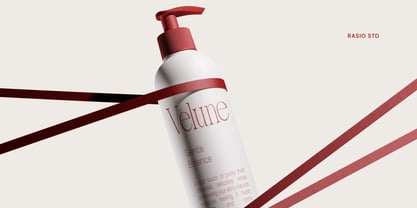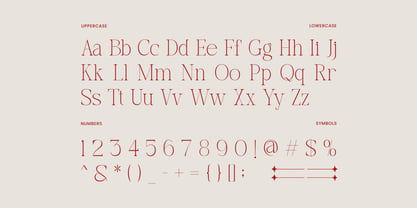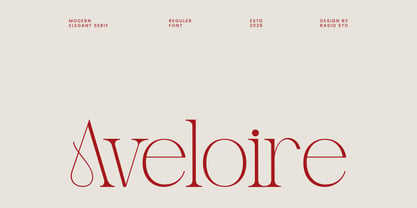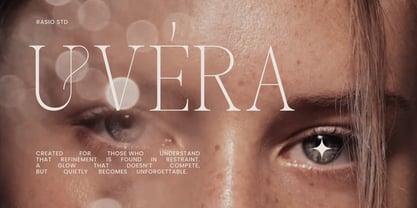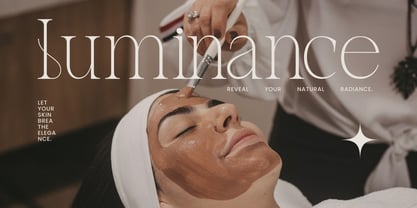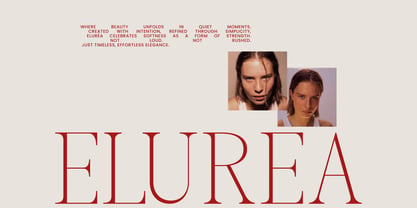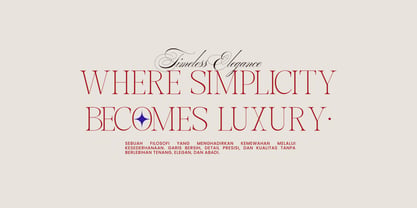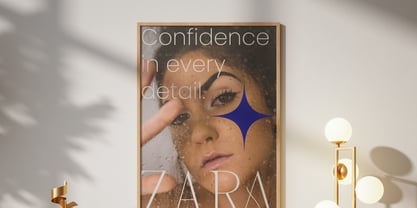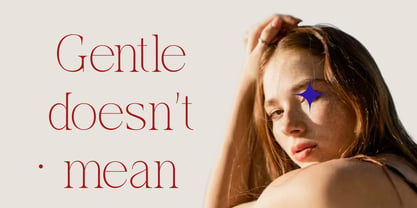
Aveloire
by Rasio Studio
The Aveloire Font Family was designed by Fajar Indra and published by Rasio Studio. Aveloire contains 1 styles. More about this family
Aveloire is a modern elegant serif typeface designed with refined proportions and graceful letterforms. The font blends classic editorial serif structure with contemporary minimal details, creating a sophisticated typographic presence for modern design layouts. Its balanced contrast and smooth curves deliver clarity and elegance while maintaining strong visual harmony across titles and text compositions. Aveloire is designed for modern editorial and luxury branding projects that emphasize elegance and visual refinement. Its stylish serif structure works well for fashion magazines, premium brand identities, beauty packaging, luxury product branding, editorial layouts, and sophisticated digital design compositions.
Designers: Fajar Indra
Foundry: Rasio Studio